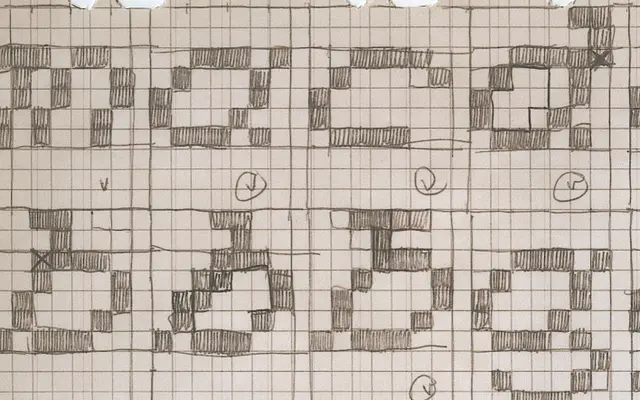
FT 88
A geometric display typeface from U+270D, the type foundry associated with EESAB, built for headline and large-scale typographic use.
FT 88 is a constructed geometric display face produced by U+270D, the foundry operating out of EESAB. Its letterforms are suited to headlines and poster-scale work where strong geometry and clarity at large sizes are required. The page provides limited detail on weights or language support beyond standard Latin.
FT 88 is a geometric display typeface with strong constructed letterforms suited to headlines and large-scale use, placing it firmly in the display category.